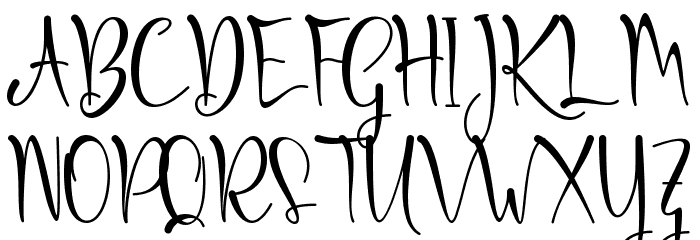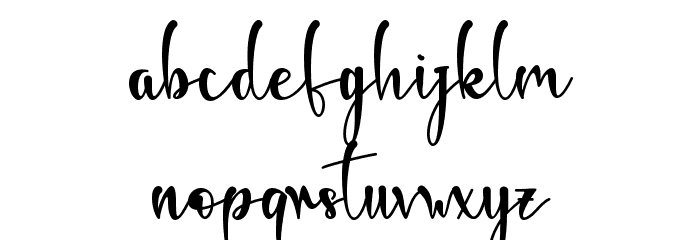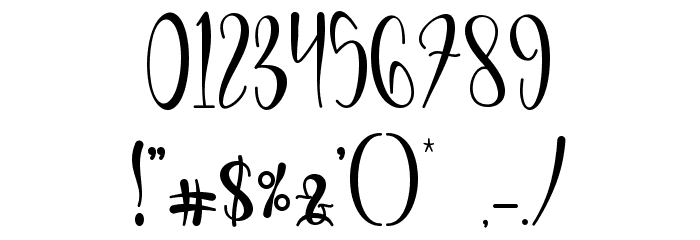
Ghilby-PERSONAL USE Font
A playful and decorative script font with flowing, connected letters and a handwritten style.
Playful decorative script font.
- Proposed Projects: Invitations, greeting cards, logos, and decorative text.
- Category: Script
- Use Case: Logos, decorative text, invitations.